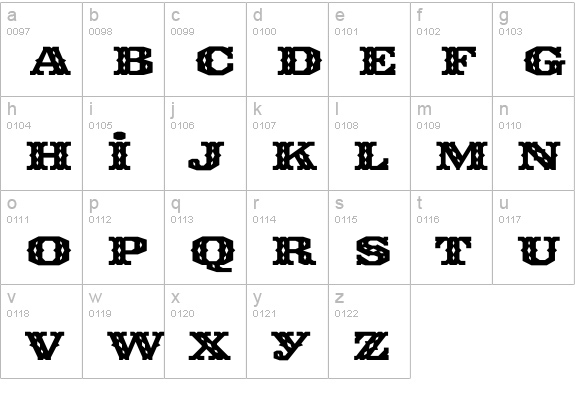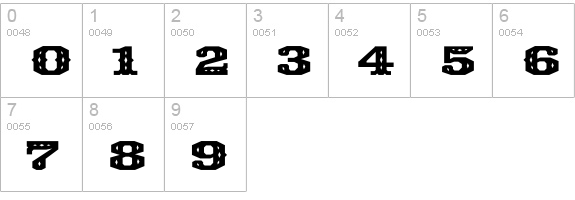
Ironmonger-Inlaid Font Details
Ironmonger-Inlaid font is a stunning typeface that exudes elegance and sophistication. With its intricate inlaid design, this font is perfect for adding a touch of luxury to any project. The carefully crafted details of the font showcase the skill and craftsmanship of the ironmonger, making it a true work of art. The Ironmonger-Inlaid font is versatile and can be used for a variety of design purposes. Whether you are creating invitations, logos, or branding materials, this font will make a bold statement. Its unique style will captivate viewers and leave a lasting impression. One of the best things about the Ironmonger-Inlaid font is that it is available for free. You can easily download it from FontsMarket.com and start using it in your projects right away. This font is a valuable addition to any designer's toolkit, as it offers a high-quality and visually appealing option without any cost. The Ironmonger-Inlaid font is well-suited for both print and digital applications. Its sharp and clean lines make it highly readable, even at smaller sizes. The inlaid details add a touch of depth and texture, giving the font a three-dimensional effect. With its classic yet modern design, the Ironmonger-Inlaid font is sure to elevate any design project. Its versatility, elegance, and free availability make it a must-have font for designers of all skill levels. Whether you are working on a personal project or a professional assignment, this font will add a touch of sophistication and style. So why wait? Head over to FontsMarket.com and download the Ironmonger-Inlaid font for free today.